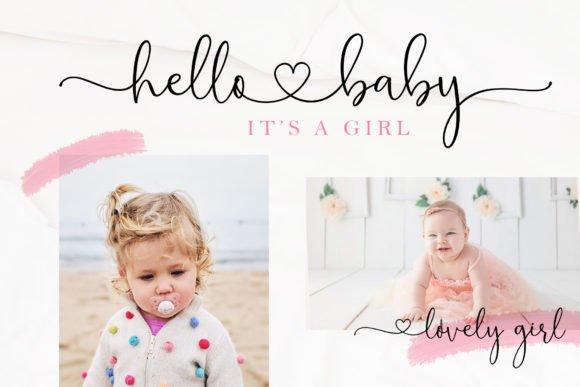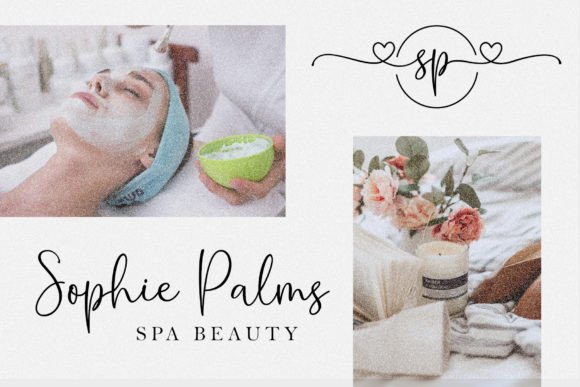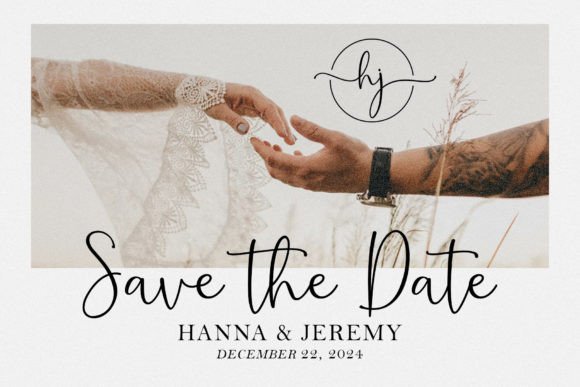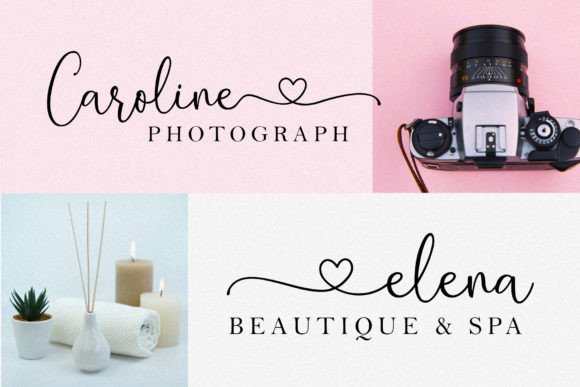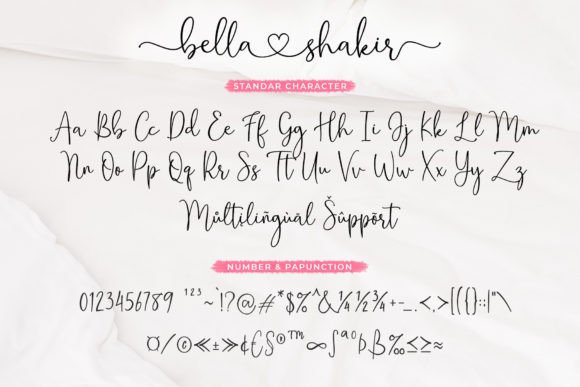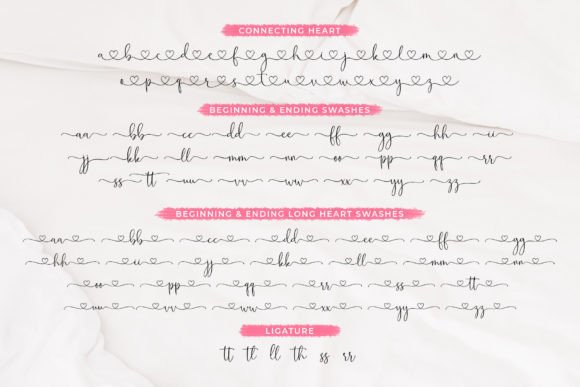
Bella Shakir Font: Elevate Your Designs with Elegance and Sophistication
In the world of typography, a beautiful font can make all the difference in elevating your designs to the next level. If you’re a designer, crafty enthusiast, or simply someone who appreciates the art of beautiful writing, then you’re in luck. Introducing Bella Shakir, a stunning handwritten font that’s perfect for adding a touch of elegance and sophistication to your projects.
What Makes Bella Shakir Font So Special?
Bella Syakir is a beautiful and chic handwritten font that’s designed to make your designs stand out. This gorgeous font is suitable for a wide range of projects, including branding, wedding invitations, and other romantic endeavors. Its elegant and flowing script is sure to capture the hearts of your audience and leave a lasting impression.
Key Features of Bella Shakir Font
- PUA Encoded: Bella Shakir font is PUA encoded, which means you can access all of the glyphs and swashes with ease. This feature makes it incredibly easy to use and customize the font to suit your needs.
- Handwritten Script: The font features a beautiful handwritten script that’s both elegant and sophisticated.
- Versatile: Bella Shakir font is perfect for a wide range of projects, including branding, wedding invitations, and other romantic endeavors.
Why Designers and Crafters Love Bella Shakir Font
Designers and crafters alike love Bella Shakir font for its versatility and elegance. Whether you’re creating a brand identity, designing wedding invitations, or crafting beautiful stationery, this font is sure to impress. Its beautiful handwritten script and PUA encoding make it easy to use and customize, while its elegant and sophisticated style ensures that your designs will stand out from the crowd.
Tips and Tricks for Getting the Most Out of Bella Shakir Font
- Experiment with Different Sizes: Bella Shakir font looks great in a variety of sizes, from large headings to smaller body text.
- Pair it with Other Fonts: Try pairing Bella Shakir font with other fonts to create a unique and interesting contrast.
- Use it for Headings and Titles: The font’s elegant and sophisticated style makes it perfect for headings and titles.
In conclusion, Bella Shakir font is a beautiful and elegant handwritten font that’s perfect for designers, crafters, and anyone who appreciates the art of beautiful writing. Its PUA encoding and versatile style make it easy to use and customize, while its elegant and sophisticated script ensures that your designs will stand out from the crowd. Whether you’re creating a brand identity, designing wedding invitations, or crafting beautiful stationery, Bella Shakir font is sure to impress.